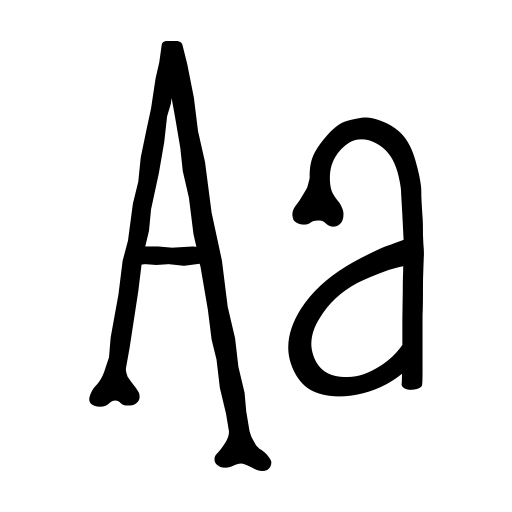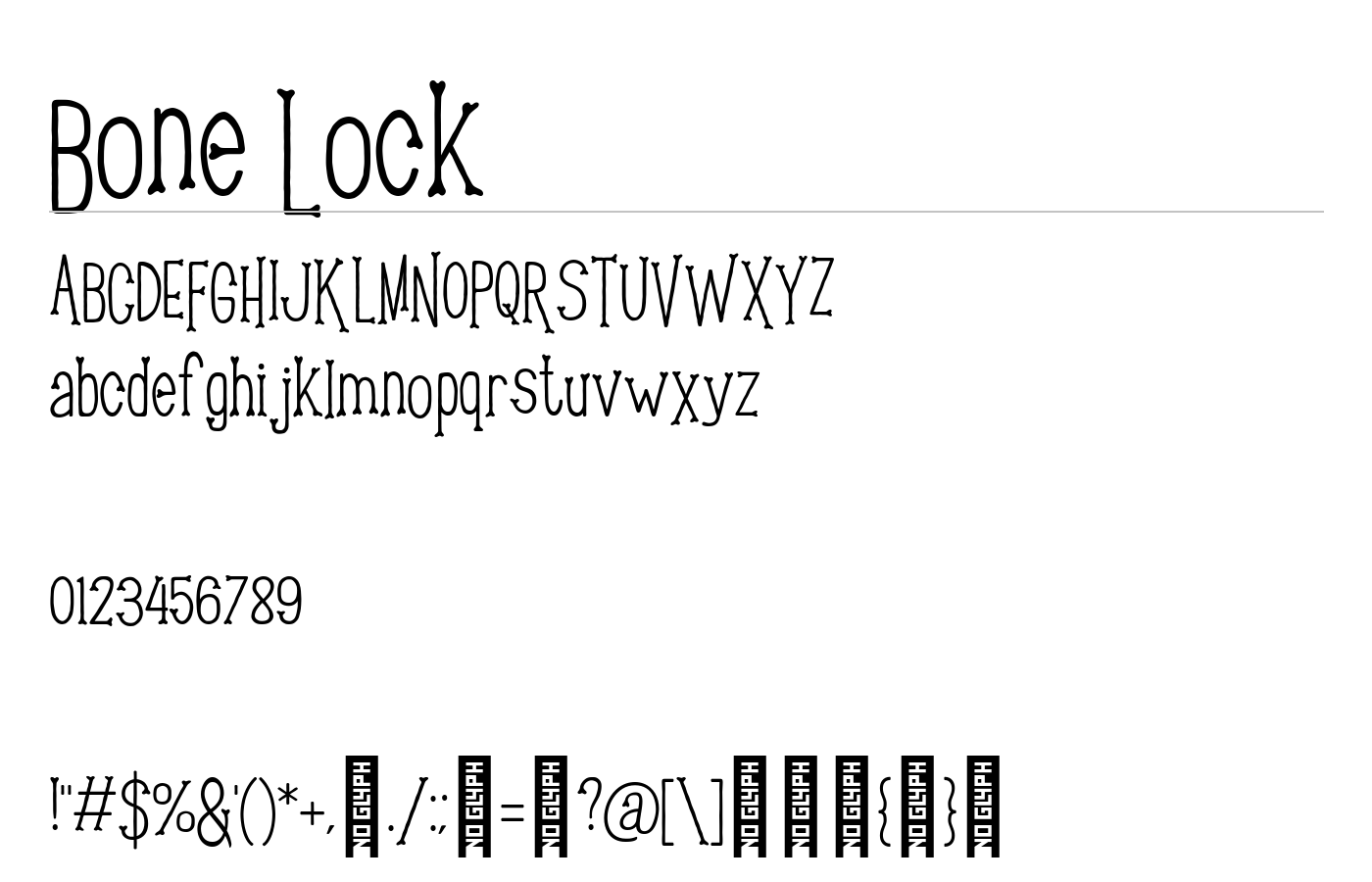
Bone Lock is a quirky, hand-drawn serif font with slender, uneven strokes and playful details like heart-shaped terminals. Its tall, narrow letterforms and irregular curves give it a whimsical, casual feel perfect for creative projects, Halloween themes, or children’s designs. This font works well in headlines and decorative uses where a unique, informal touch is desired.
Bone Lock Font
About Bone Lock Font
| Font family | Bone Lock Font |
| Designer | Ni Kadek Ema Pritadea |